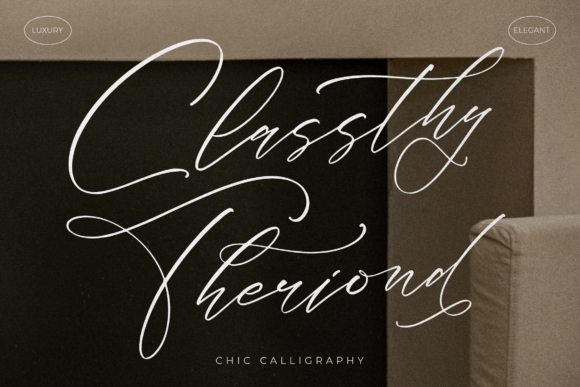
Prepare yourself to be captivated by Classthy Theriond, a script font that exudes elegance and sophistication, leaving an indelible mark on your creative endeavors. This masterpiece, meticulously crafted by Storytype Studio, is the epitome of luxury and modern aesthetics, making it the perfect choice for discerning designers seeking to make a statement.
Immerse yourself in the world of Classthy Theriond, where your imagination knows no bounds. Its unique style and modern flair will transform your designs into works of art. Envision your brand logo adorned with Classthy Theriond's intricate strokes, commanding attention and leaving a lasting impression on your audience.
Picture the title of your book or movie, rendered in Classthy Theriond's graceful curves, captivating readers and viewers alike. The font's inherent elegance will elevate your storytelling to new heights, leaving an unforgettable imprint on their minds.
Fashion brands, take note! Classthy Theriond is your secret weapon to create designs that resonate with your fashion-forward clientele. Its timeless beauty will add a touch of sophistication to your clothing line, making each piece a statement of style and elegance.
Magazines and publications, lend your pages a touch of allure with Classthy Theriond. Its refined presence will elevate your content, making each article, feature, and quote a visual feast for your readers.
Step into the realm of lettering and quotes with Classthy Theriond as your guide. Its delicate strokes and flowing lines will transform your words into breathtaking works of art, captivating your audience with their sheer beauty and emotional resonance.